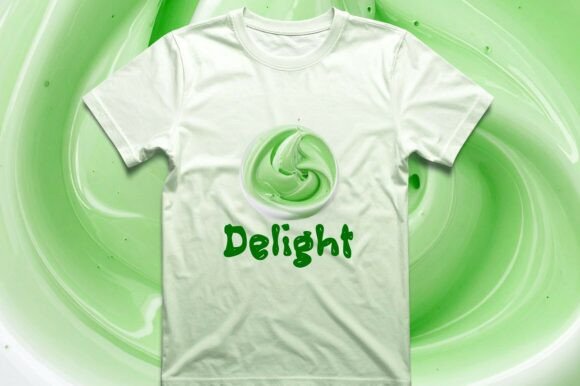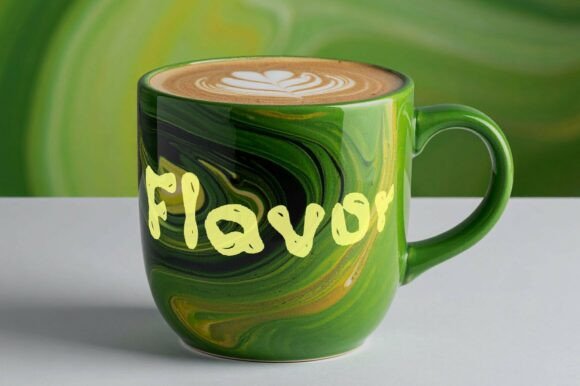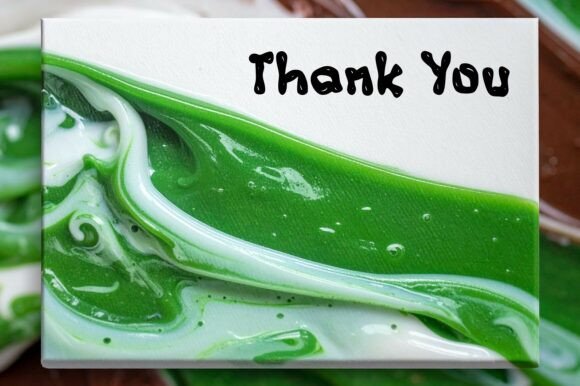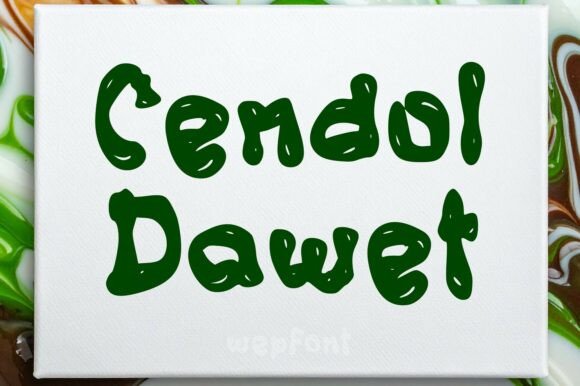
Cendol Dawet Font: Add a Touch of Whimsy to Your Designs
Are you looking for a font that can inject a sense of playful energy and vibrant life into your creative projects? Look no further than the Cendol Dawet font, a display typeface that celebrates the joyful imperfection of hand-drawn art. This font is perfect for designers and crafters who want to add a touch of whimsy to their designs, making them stand out with a signature look that is both modern and nostalgic.
The Characteristics of Cendol Dawet Font
The Cendol Dawet font is characterized by its plump, “juicy” letterforms and a unique internal texture that mimics the organic details of a sketchbook doodle. It strikes a delightful balance between being a bold display font and a friendly, approachable script, featuring soft, rounded contours that make every word feel like a playful invitation. The font’s design is inspired by the imperfections of hand-drawn art, giving it a unique and charming personality.
Perfect for Youthful and Creative Audiences
The Cendol Dawet font is an exceptional choice for branding that targets a youthful, creative audience—think trendy cafe menus, artisanal snack packaging, or vibrant streetwear labels. Its heavy, eye-catching weight makes it perfect for bold headlines on event posters, advertisements, or social media graphics. The font’s playful and energetic vibe is sure to resonate with young audiences, making it an excellent choice for brands that want to appear modern and trendy.
Key Features of Cendol Dawet Font
- Unique Internal Texture: The font’s internal texture mimics the organic details of a sketchbook doodle, giving it a hand-drawn feel.
- Plump and Juicy Letterforms: The font’s letterforms are plump and “juicy,” making them perfect for bold headlines and eye-catching designs.
- Soft and Rounded Contours: The font’s soft and rounded contours make every word feel like a playful invitation.
- Bold Display Font: The Cendol Dawet font is a bold display font that is perfect for headlines and titles.
- Modern and Nostalgic: The font’s design is both modern and nostalgic, making it perfect for brands that want to appear trendy and youthful.
Use Cases for Cendol Dawet Font
The Cendol Dawet font is versatile and can be used in a variety of design projects, including:
- Trendy Cafe Menus: The font’s playful and energetic vibe is perfect for trendy cafe menus that want to stand out.
- Artisanal Snack Packaging: The font’s unique and charming personality makes it perfect for artisanal snack packaging.
- Vibrant Streetwear Labels: The font’s bold and eye-catching weight makes it perfect for vibrant streetwear labels.
- Event Posters: The font’s heavy and playful weight makes it perfect for bold headlines on event posters.
- Social Media Graphics: The font’s modern and nostalgic vibe makes it perfect for social media graphics that want to stand out.
In conclusion, the Cendol Dawet font is a unique and charming display typeface that can add a touch of whimsy to your designs. Its playful and energetic vibe makes it perfect for brands that want to appear modern and trendy, while its bold and eye-catching weight makes it perfect for headlines and titles. Whether you’re a designer or crafter, the Cendol Dawet font is an excellent choice for any creative project.